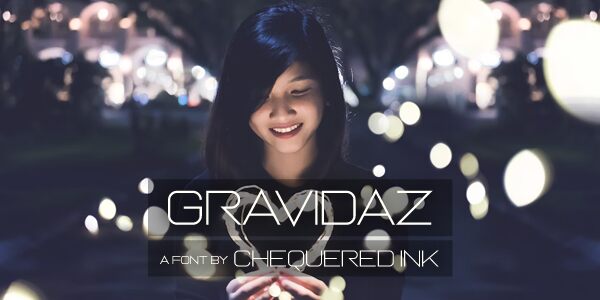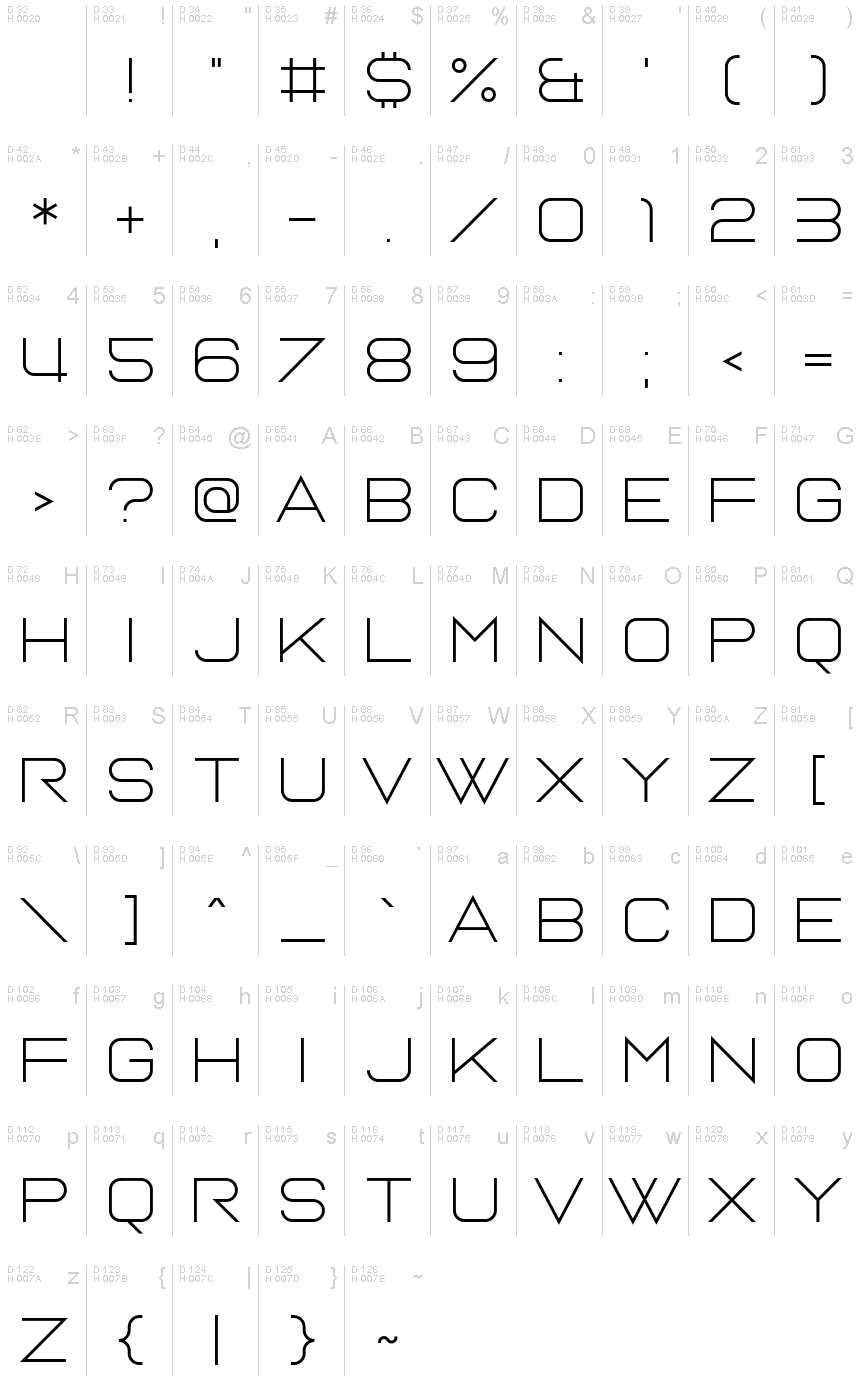
Gravidaz
Gravidaz, a modern sans serif font designed by Allison J James, is perfect for projects that require a clean and contemporary feel. With its light weight and expanded width, Gravidaz is ideal for headlines and titles that need to make a statement. Its legibility and simplicity make it fitting for a variety of designs such as branding materials, websites, packaging, and even social media graphics. The unique spacing between each letter allows for maximum impact while still maintaining an elegant touch. Make your designs stand out with Gravidaz – the font that effortlessly combines modernity with sophistication.